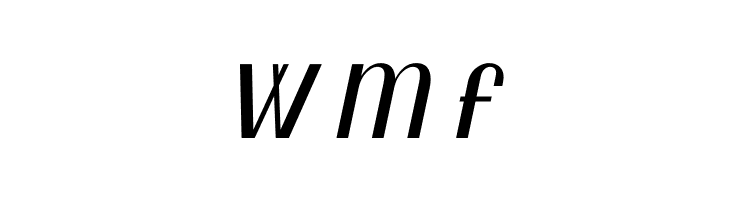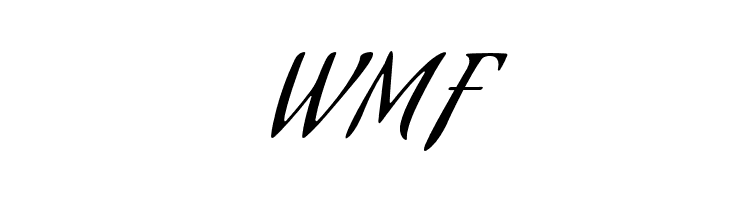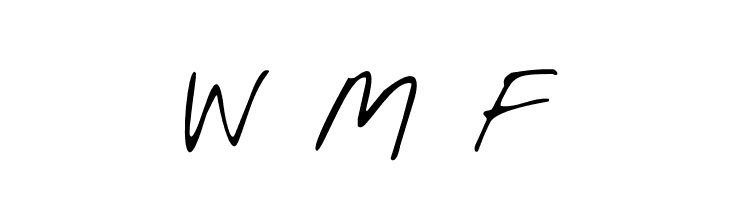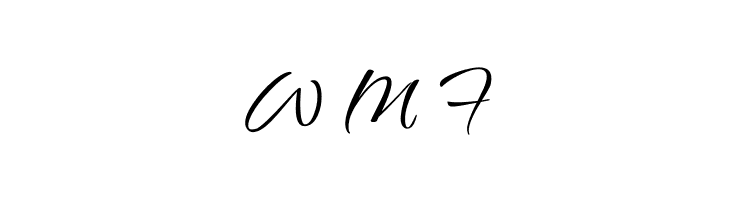
A clean, modern sans-serif font with a geometric influence.
A modern italic font with smooth strokes and moderate contrast, exuding elegance and fluidity.
A classic serif font with elegant, calligraphic influences and ornate details.
An elegant script font with fluid, cursive strokes and a sophisticated appearance.
A casual, handwritten font with fluid strokes and a personal touch.
A bold, dynamic script font with fluid, connected letterforms.
An elegant script font with fluid, interconnected strokes and sophisticated flourishes.
A decorative font with elongated, narrow letterforms and art nouveau influences.
A bold, angular font with a strong geometric influence, ideal for impactful designs.
A bold, decorative font with sharp, angular edges and a gothic influence.